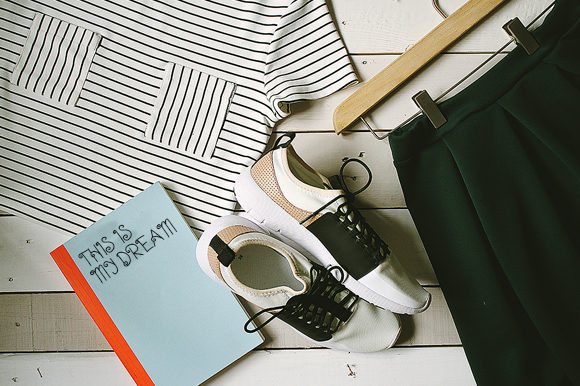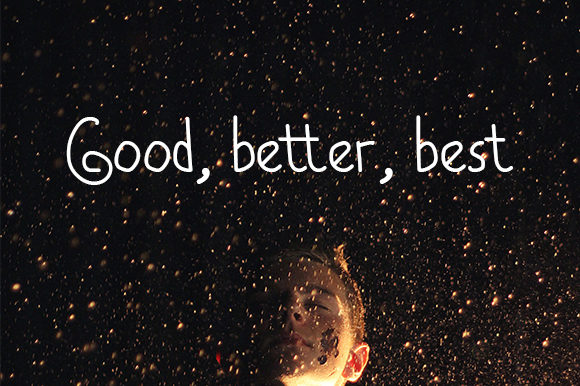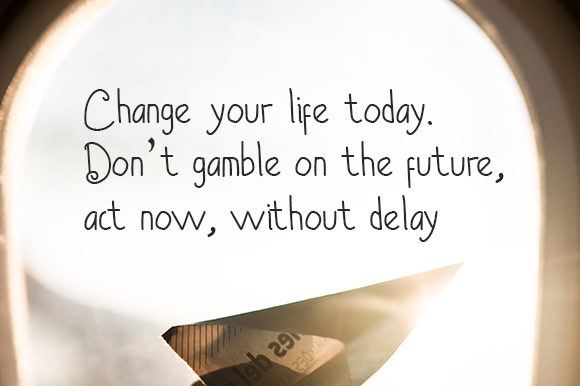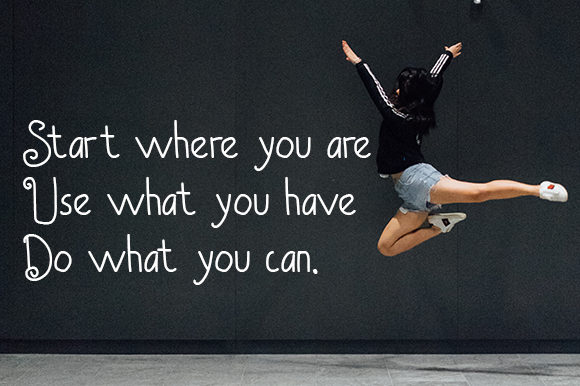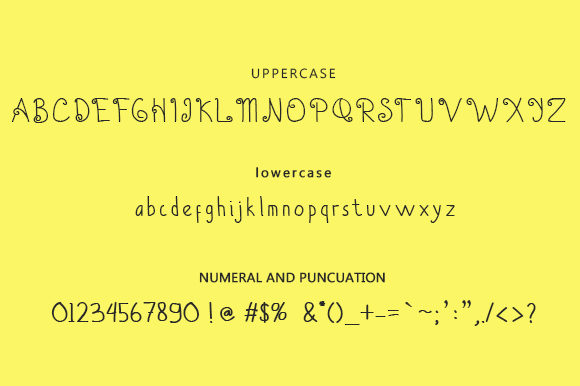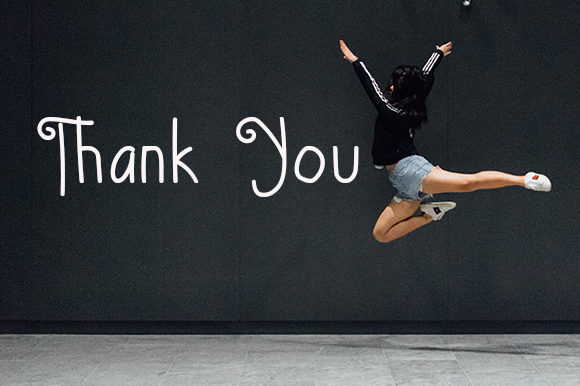
Spark Your Creativity with Dream Light Font
Have you ever sat in front of your computer, staring at a blank page, waiting for inspiration to strike? We’ve all been there. The blank slate of a new project can be both exciting and intimidating. But what if I told you that there’s a secret ingredient that can add a touch of magic to your creative endeavors? Enter Dream Light Font, a beautiful handwritten font that’s sure to ignite your imagination and bring your ideas to life.
As a designer, you know the importance of choosing the right font to convey your message. And that’s exactly what Dream Light Font is designed to do – add a natural spark to any creative idea. Whether you’re working on a branding project, a blog post, or a social media campaign, this font is the perfect choice to give your work a unique and personalized touch.
Dream Light Font Key Features
- Unique Characteristics: Features a dreamy, ethereal aesthetic with intricate details and subtle texture, ideal for creative and artistic applications.
Dream Light Font Review
I recently had the chance to work with the Dream Light Font, and overall, I’m quite impressed. ✨ Here are some of its strengths:
- Unique and elegant aesthetic that adds a touch of sophistication to any design.
- Wide range of font styles, including bold, italic, and regular, which makes it versatile for different design needs.
- Legibility is excellent, even at smaller font sizes, making it perfect for body text and headings.
However, there are a few limitations I’d like to point out: ⚠️
- The font can be a bit overused in certain design communities, which might limit its originality.
- The font might not be suitable for very informal or casual designs, as it comes across as quite formal.
- The font files can be quite large, which might cause issues with page loading times.
Overall, the Dream Light Font is a solid choice for designers who want a sophisticated and elegant look. It’s versatile and legible, but it’s essential to consider its limitations when choosing a font for your project.
Getting the Most Out of Dream Light Font
To get the most out of the Dream Light Font, try using it in combination with other elegant fonts or with bold, contrasting colors to create a striking visual effect.
Experiment with different font sizes, bolding, and italicizing to add emphasis and create visual hierarchy in your design.
The Dream Light Font is commonly used in:
- Branding and logo design
- Magazine and brochure design
- Web design and e-commerce
Alternatives to Dream Light Font for Designers
Lato is a modern sans-serif font that is highly legible and suitable for both body and heading text. It is a popular alternative to Dream Light Font due to its clean and minimalistic design. Lato is ideal for use in digital products, branding, and print materials.
Comparison: Lato has a more modern feel compared to Dream Light Font, which has a softer and more elegant appearance. Lato is also more versatile and can be used in a wider range of applications.
Avenir
Avenir is a geometric sans-serif font that is highly legible and suitable for use in both digital and print materials. It has a clean and minimalist design, making it a popular alternative to Dream Light Font. Avenir is ideal for use in branding, advertising, and editorial content.
Comparison: Avenir has a more geometric feel compared to Dream Light Font, which has a more organic appearance. Avenir is also more modern and sleek, making it a great choice for contemporary designs.